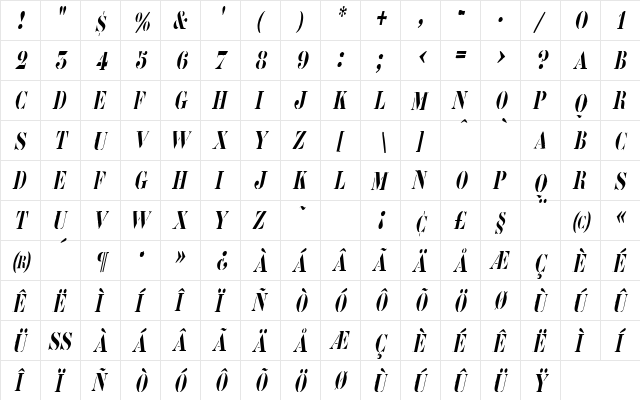
RoadcaseCondensed Oblique Font Preview
Design Context for RoadcaseCondensed Typeface
RoadcaseCondensed offers clean, dependable letterforms without strong stylistic allegiance, making it a practical choice for designers who need flexibility. The slanted form adds forward momentum and visual energy. Its narrow stance lets it pack a punch even in space-constrained designs.
Pro Tip: Try RoadcaseCondensed for annotation and caption copy alongside an upright companion — the contrast in angle creates a dynamic but ordered typographic system.